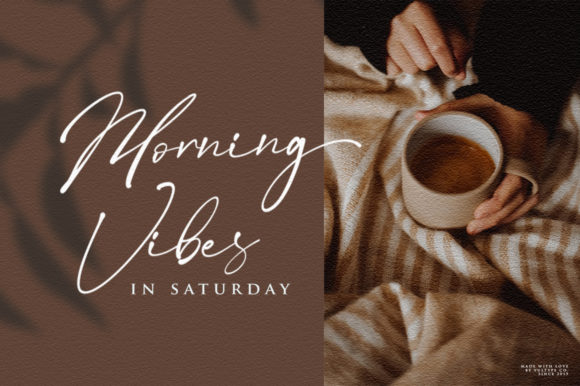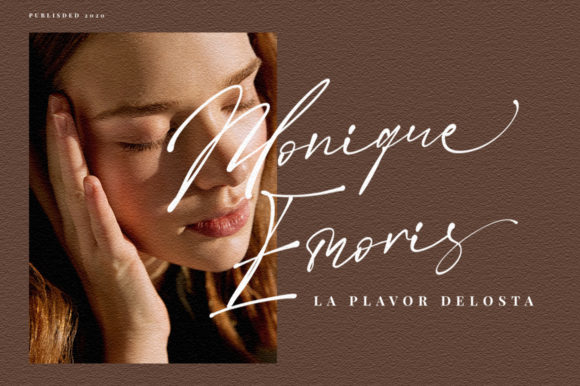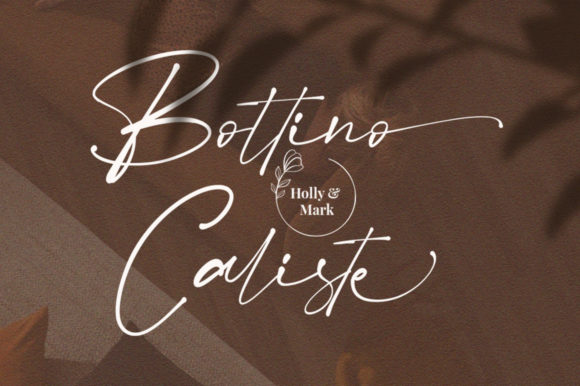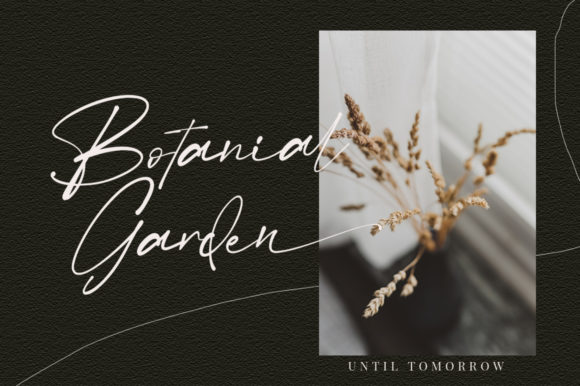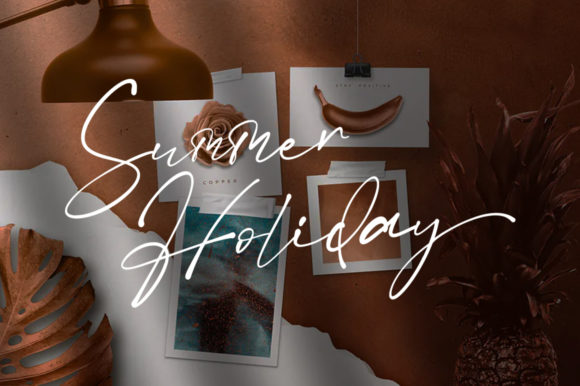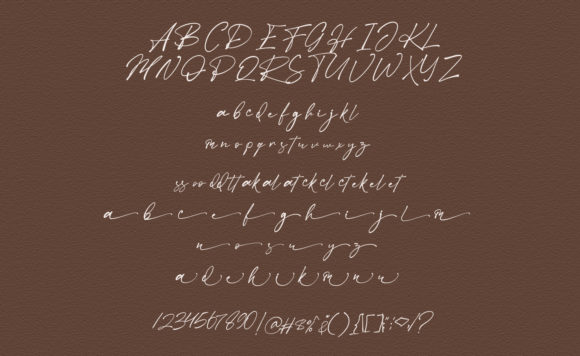
Betmo Font
About Betmo Font
Betmo is a glorious script font with beautiful ligatures and alternates. It will elevate a wide range of design projects to the highest level, be it branding, headings, wedding designs, invitations, signatures, logos, labels, and much more!